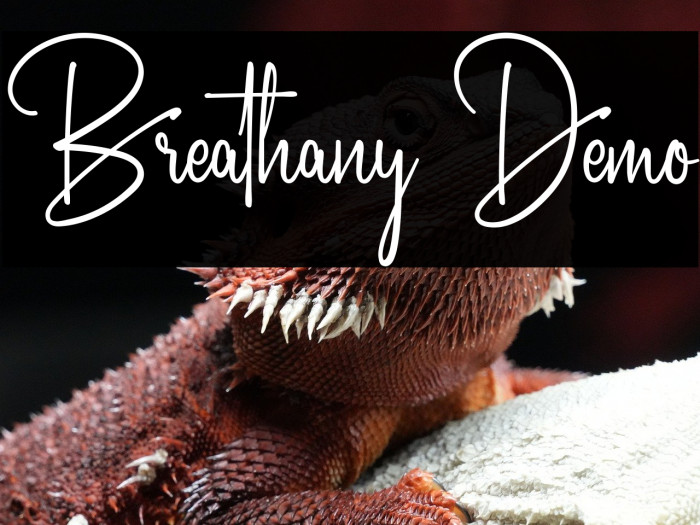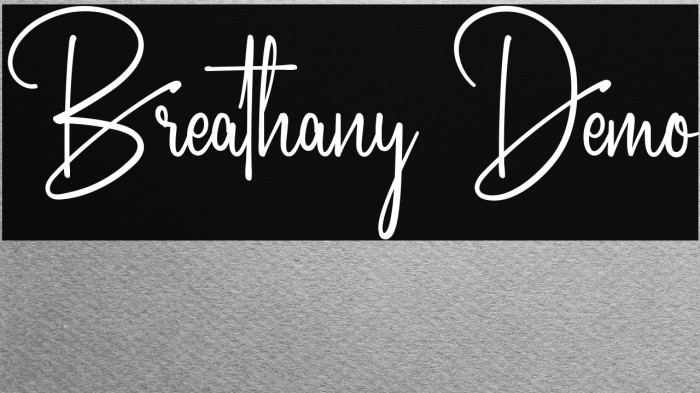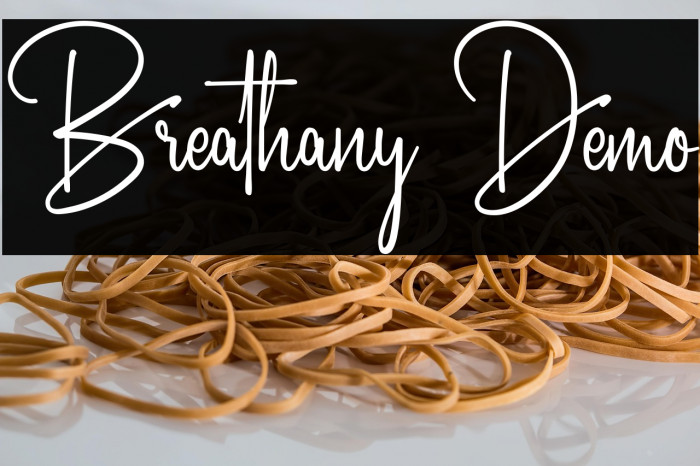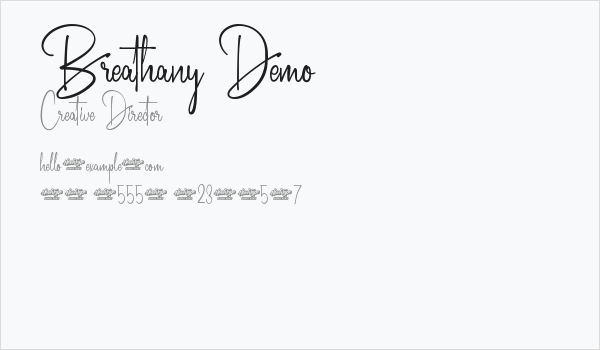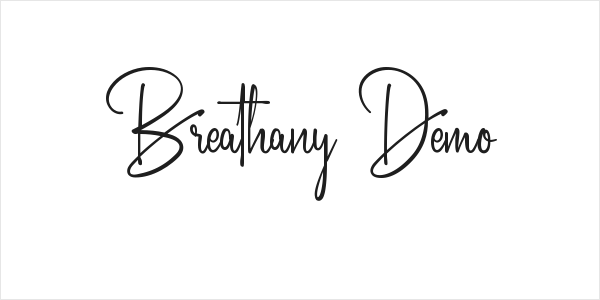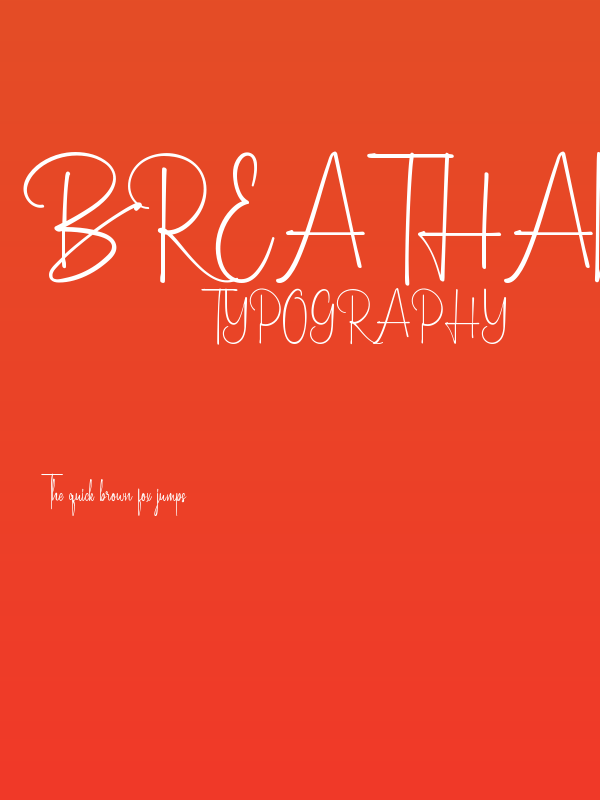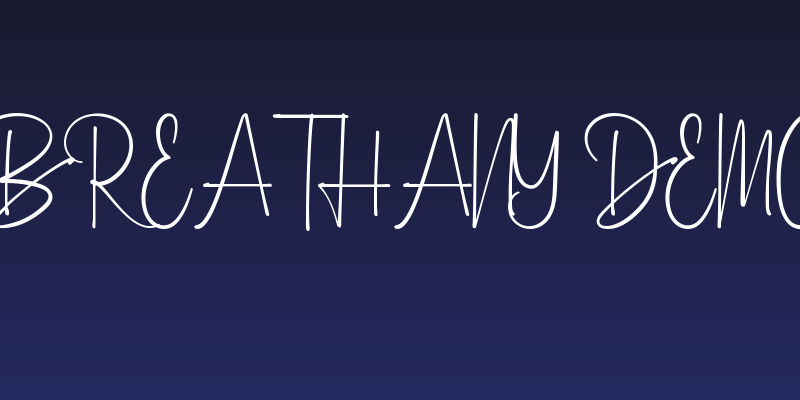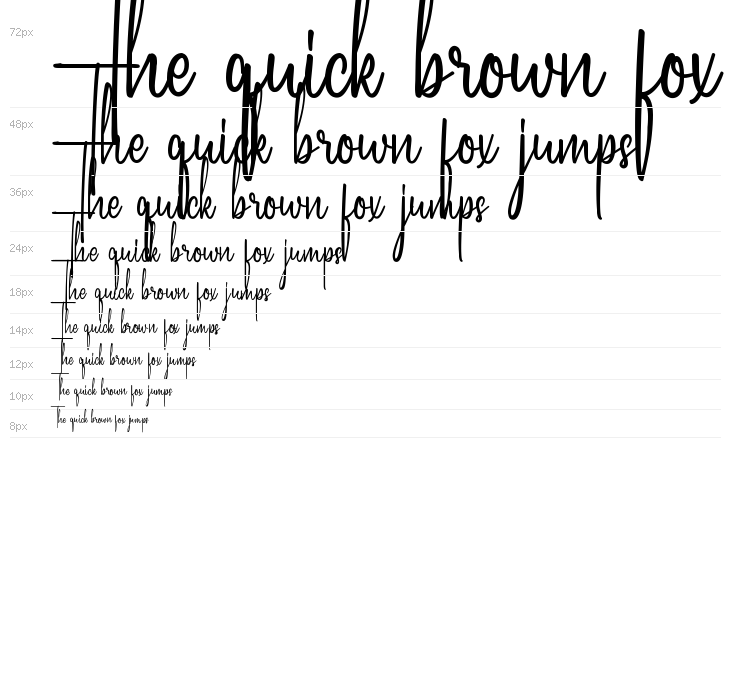
Breathany Demo Font
Breathany Demo Description
This font features a playful and whimsical handwritten style, characterized by its flowing, cursive-like strokes and a sense of movement. The uppercase letters are tall and slender, with a slight slant that adds to the dynamic feel. The lowercase letters are more rounded and connected, creating a smooth and continuous flow. The numbers are consistent with the overall style, maintaining the playful and informal aesthetic. Special characters are integrated seamlessly, enhancing the font's versatility. This font is ideal for projects that require a personal and friendly touch, such as invitations, greeting cards, and creative branding.
Overall StylePlayful, Whimsical
Use CaseHeadlines, Logos, Invitations
Proposed ProjectsIdeal for invitations, greeting cards, creative branding, and personal projects.